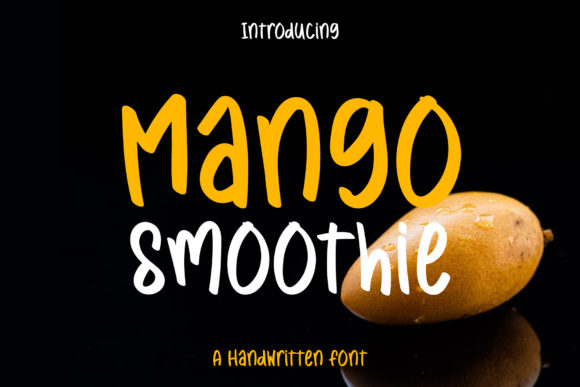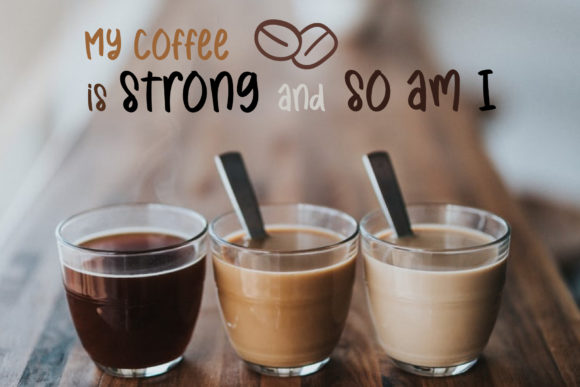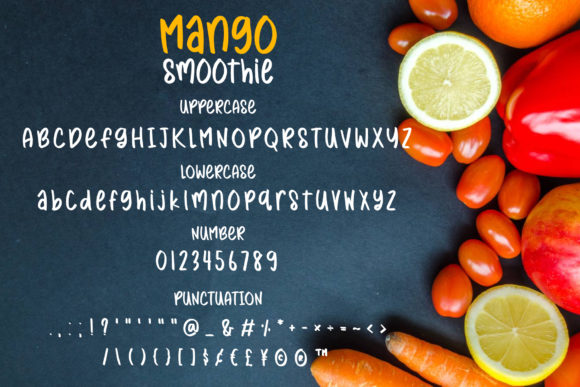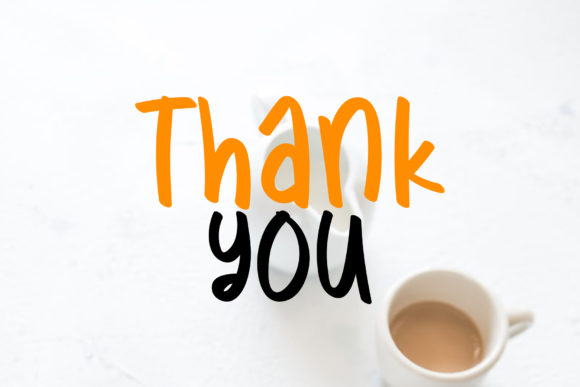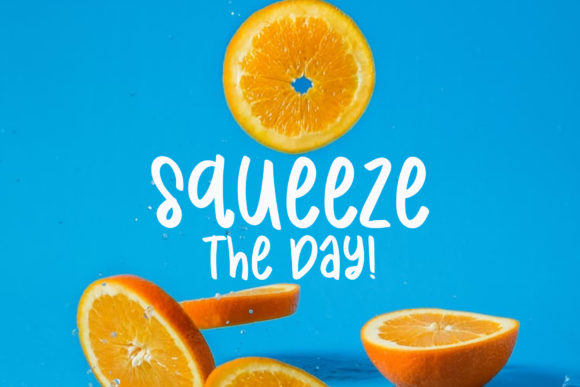
Mango Smoothie Font
About Mango Smoothie Font
Mango Smoothie is a neat and casual handwritten font. Trendy and relaxed, this font works perfectly on so many design ideas. your imagination is the limit!